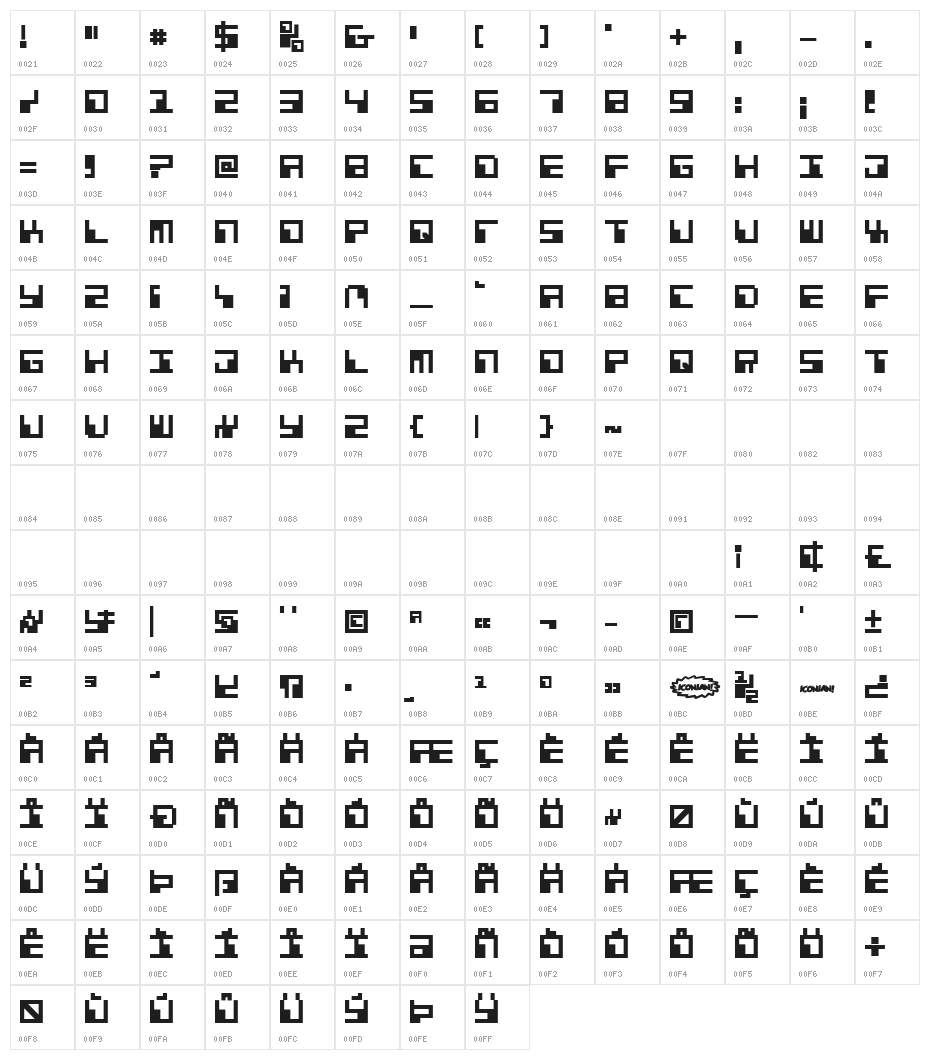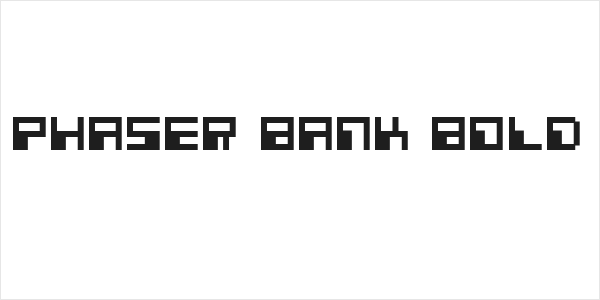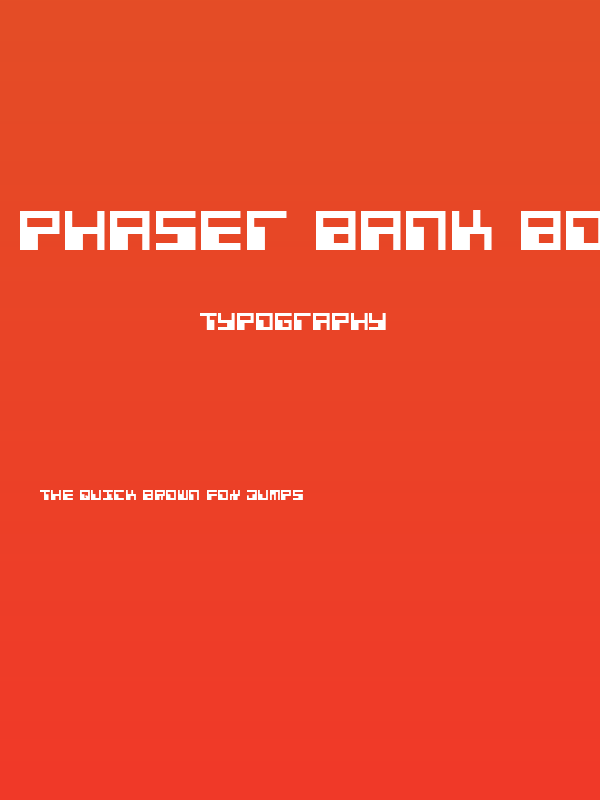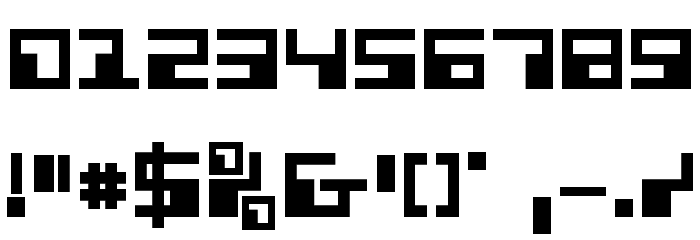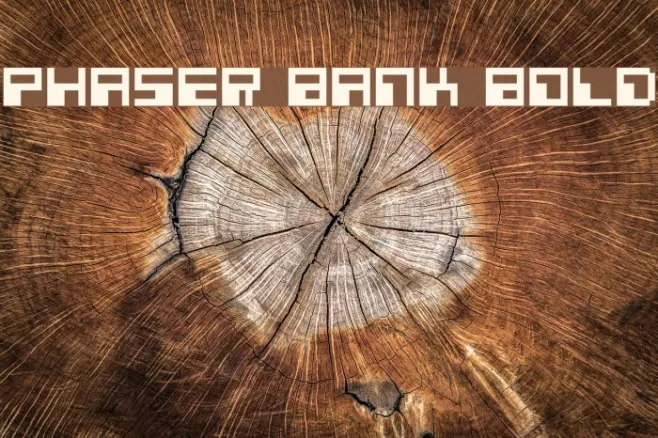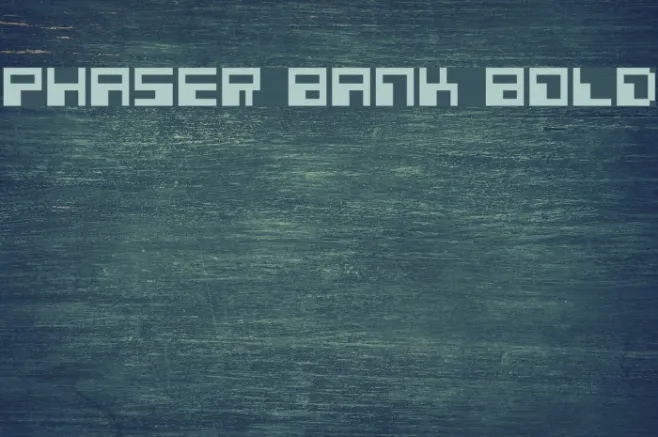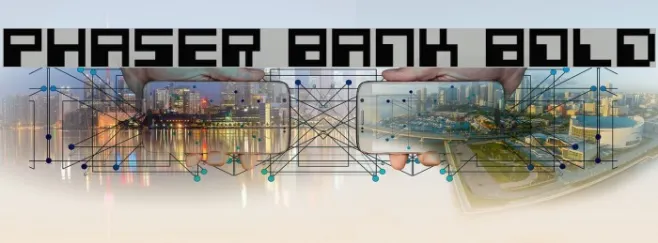
Phaser Bank Bold Font
Phaser Bank Bold Description
This font features a bold, geometric style with a distinctly digital and futuristic appearance. The characters are constructed with sharp angles and straight lines, creating a blocky and robust look. The uppercase and lowercase letters maintain a consistent height, contributing to a uniform and cohesive design. The numbers and special characters follow the same angular and bold aesthetic, ensuring visual harmony across all elements. This font's design is reminiscent of early digital displays or video game graphics, making it ideal for projects that require a tech-savvy or retro-futuristic vibe.